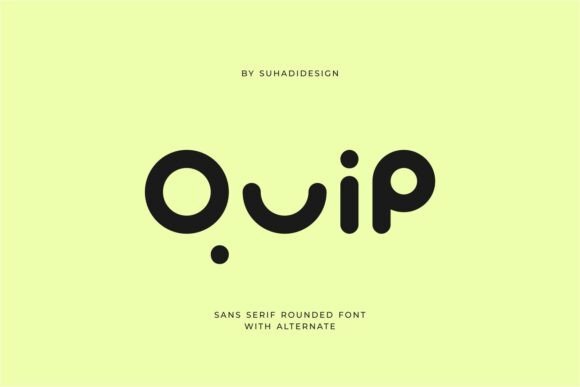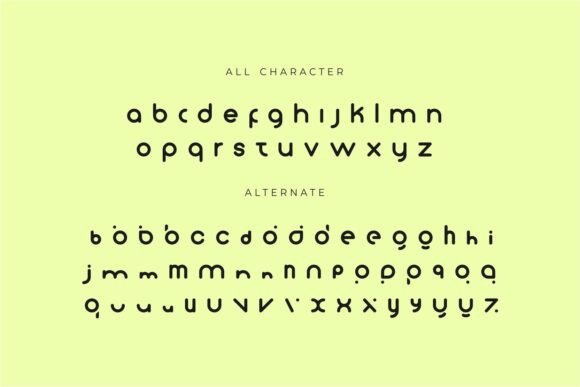
Quip Font
Quip – Sans Serif Rounded Alternate
The Quip font stands out with its bold geometric curves, smooth terminals, and playful alternates that transform traditional letterforms into something lively and modern.
The rounded shapes create a sense of friendliness and approachability, while the generous spacing and circular rhythm give it a clean, contemporary appeal.
Its alternates bring a quirky twist—letters break into unexpected curves and dot-like accents, adding versatility and personality for branding, logos, or editorial design. Quip font embodies a balance between minimalism and creativity, making it both functional and expressive, a font that communicates clarity with a fresh, innovative charm.